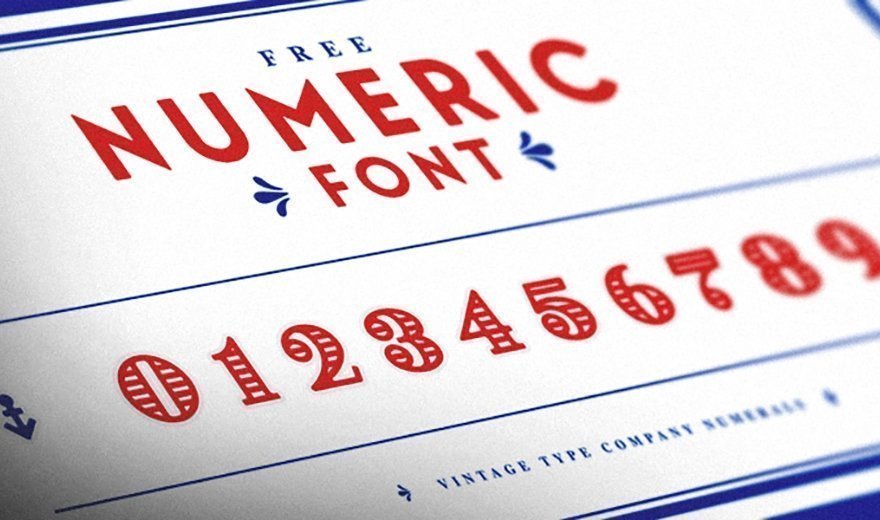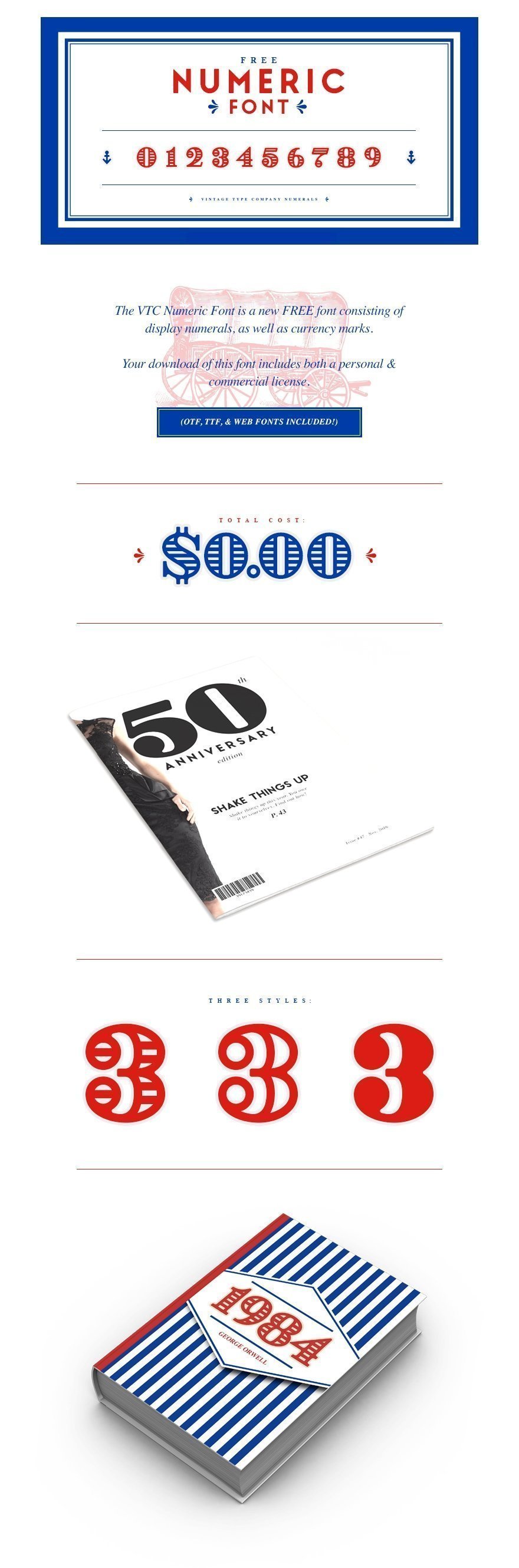
Download this free display font that comes with 3 different styles: display, outline, and black. This free numeric font is available in .otf, .ttf, and web font format and comes with standard currency symbols included. This is a perfect choice any time you need a bold set of numbers with a vintage charm!